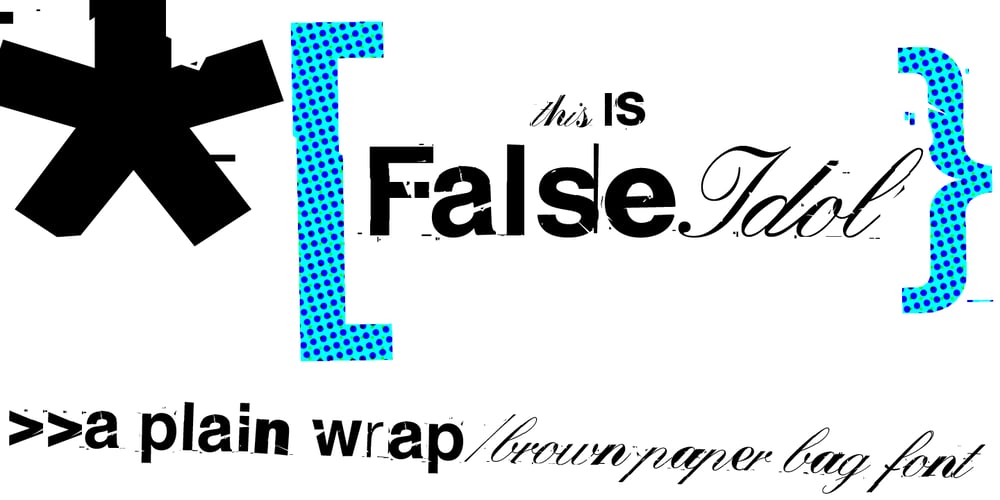
False Idol
False Idol font
False Idol Font Family was designed by Jonathan Barnbrook and published by Barnbrook Fonts. False Idol contains 2 styles and family package options. False Idol is based on bad rub-down lettering from 1970s pornographic magazines and home-made religious leaflets. The letterforms were intended to mimic a feeling of cheap glamour but just became seedy. Somehow an alluring beauty emerges from this mix of sleaze and chic…